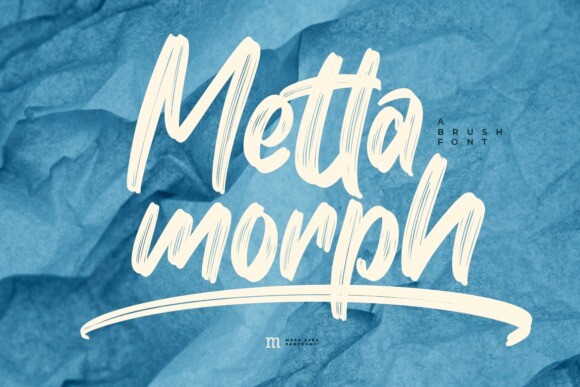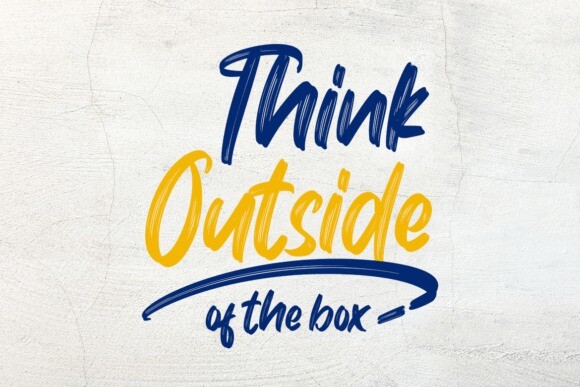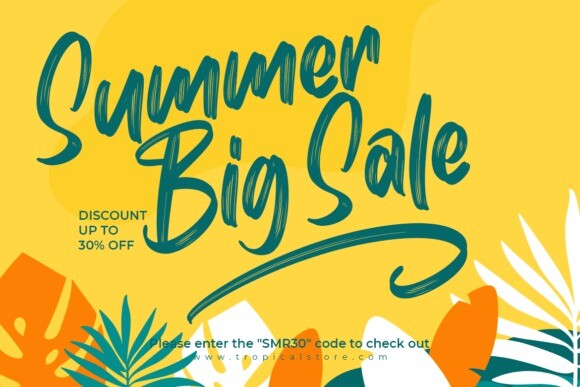
Mettamorph Font
Mettamorph is a versatile and stylish handwritten script font, perfect for a wide spectrum of applications such as greeting cards, headlines, and many more! Add it to any of your creative projects, and it will give them a clean and exquisite feel.